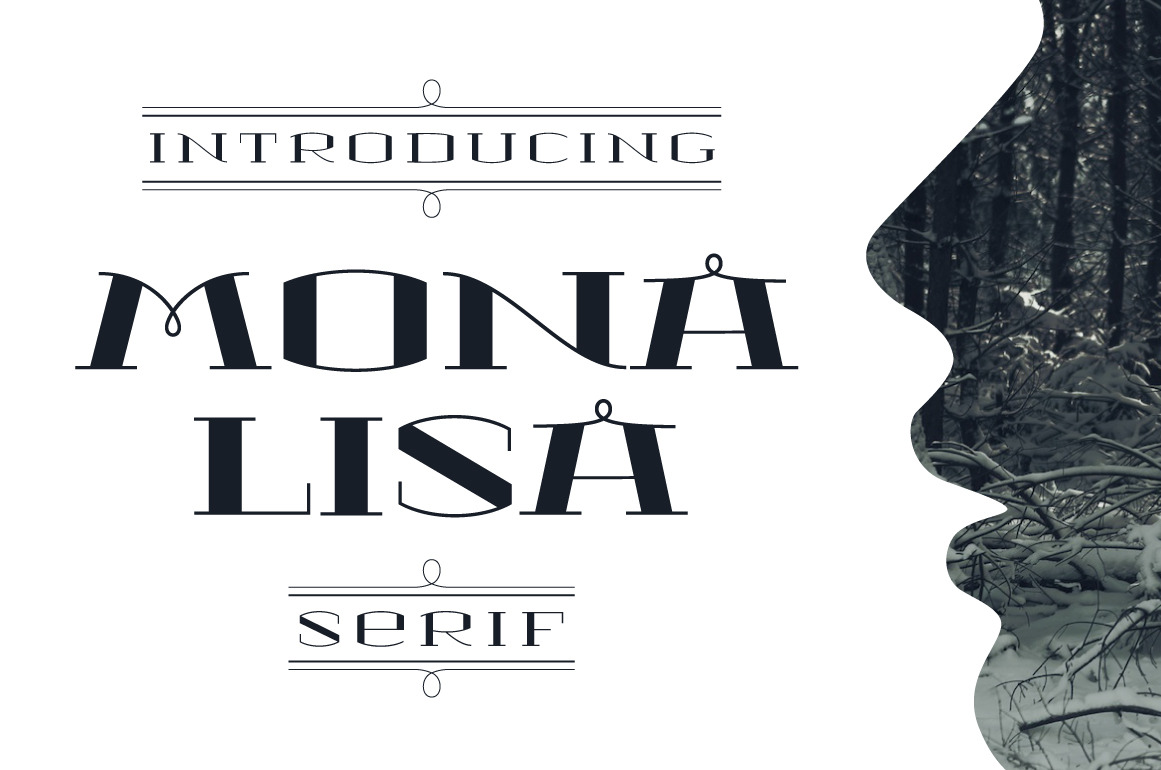
MONA LISA Serif Font Family
Dear Friends! I am happy to introduce my new font family Mona Lisa. Special design and elegant décor elements give a freshly new look at a classic serif font. Classic but sophisticated, clean and beautiful. Looks great as display font, as a part of identica and logo elements. Would be perfect for wedding or any other event decoration.
The type family consists of three weights: Regular, Medium, SemiBold
Each weight has Italic variant.
Uppercase letters, lowercase letters, numbers, Latin multilingual support. Basic punctuations.